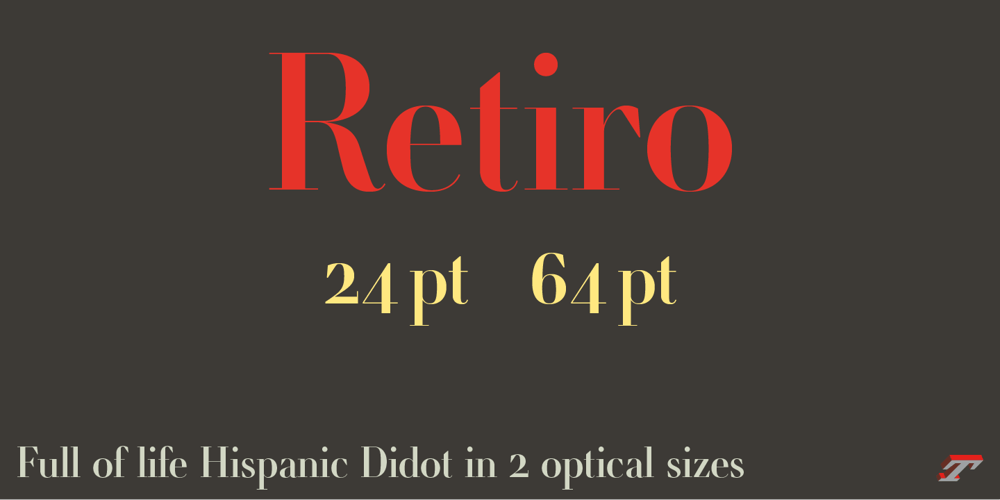
Retiro Std Font Family was designed by Jean François Porchez and published by Typofonderie. Retiro Std contains 2 styles and family package options. Full of life Hispanic Didot in 2 optical sizesRetiro is a daring interpretation of Spanish typography. Severe, austere and yet, full of life, Retiro is a vernacular version of Castilian and Andalusian in a typical Didot. Named after a lovely park in Madrid, Retiro started life as a a bespoke typeface designed to give a unique voice to the magazine Madriz. In 2006, the founder of Madriz was looking for a Didot for his new magazine. The Didot is the archetypal typeface used in high-end magazines. Retiro is a synthesis of these high contrast styles mixed with an Hispanic mind. Result is then, after 2-3 years of work, a typeface with countless variations to establish typographic shades adapted to different sections and pages of the Madriz.In 2014, it was necessary to further revise the typeface before its launch at Typofonderie. In order to keep its originality, the unique weight was retained, but complemented with optical size variants to set highly contrasted headlines into various sizes, visually balanced.How to use Retiro optical sizes?Each font provided in Retiro family is named according to the scale of body size: 24 pt and 64 pt. Of course, these names are referring to the body sizes used in typographic design. In the “glorious old days,” the letterpress period, it was customary to cut punches directly to the size at which typefaces would be used. The punchcutter had to visually adapt his design to the engraving size. The aim was to optimize the best contrast and general weight, but also to respect both design’s and reader’s needs. In Retiro’s case, intended for large titling sizes, it’s an adaptation of this ancient practice for our contemporary uses.Although each font is named by a typographic point size, do not feel obliged to use this font at this precise size, but why not, in larger or smaller. It’s rather the concept of gradients that must be preserved in layouts, rather than strictly size numbers. It’s up to the designer to select the right font size for his own designs.Granshan Awards 2012Creative Review Type Annual 2011Designpreis 2011Club des directeurs artistiques, 41e palmarèsType Directors Club 2010 Certificate of Type design Excellence